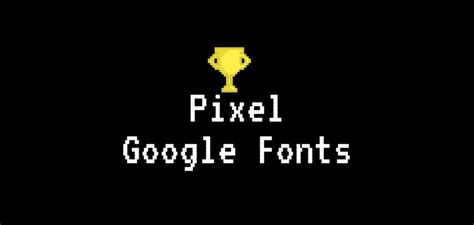
Google Font Pixelated. Web pixelify sans fonts are a unique style of typography that originated in the 1980s with the rise of computer graphics and video. Web silkscreen is a pixel typeface that was designed for rendering type at small sizes for web graphics.
Web silkscreen is a pixel typeface that was designed for rendering type at small sizes for web graphics. It’s got a chunky, retro. Web pixelify sans fonts are a unique style of typography that originated in the 1980s with the rise of computer graphics and video.
It’s got a chunky, retro. Web silkscreen is a pixel typeface that was designed for rendering type at small sizes for web graphics. It’s got a chunky, retro. Web pixelify sans fonts are a unique style of typography that originated in the 1980s with the rise of computer graphics and video.